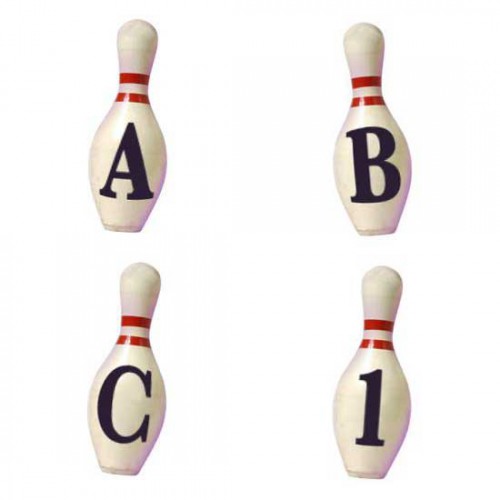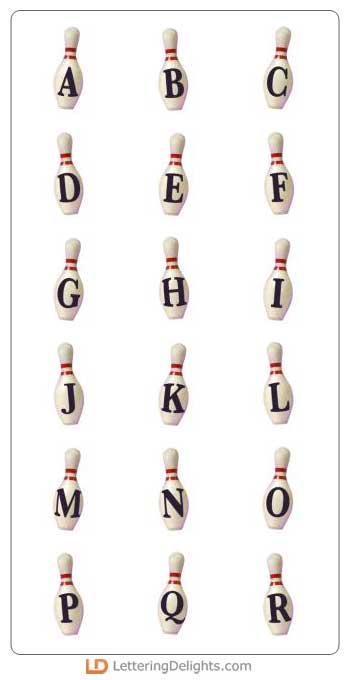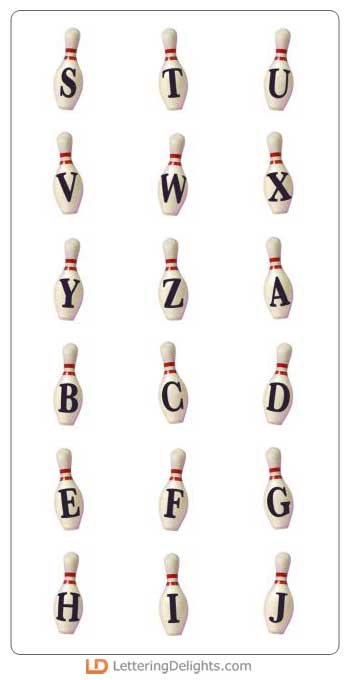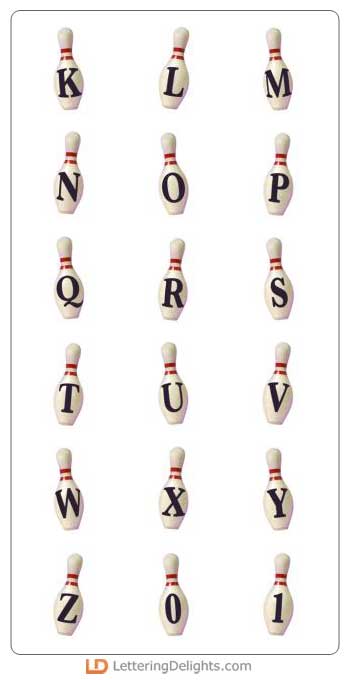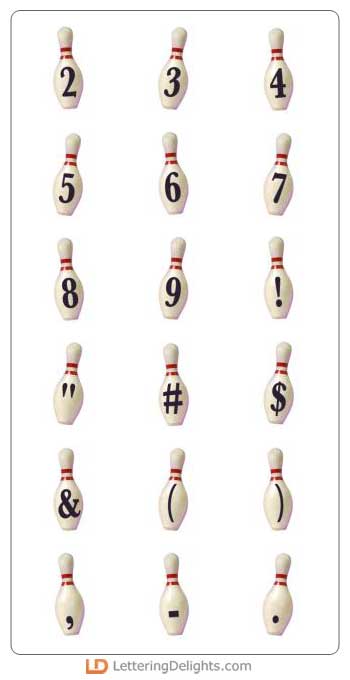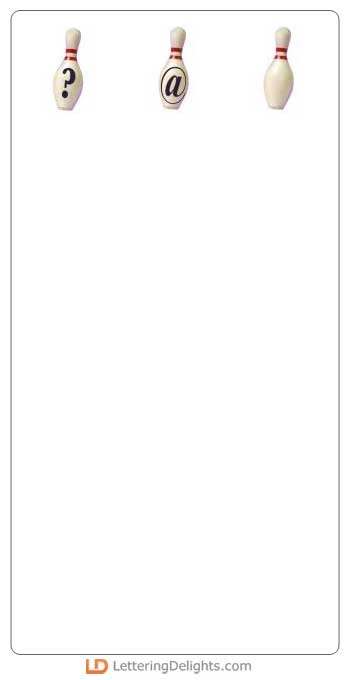
It's time for the bowling championship and this fun alphabet is just what you need. It looks like realistic bowling pins with the letters placed inside each pin. Go ahead, get that strike!